Top Free Condensed Fonts
Condensed fonts are a popular style of font that is used in many applications. They are typically narrower than normal fonts, and this makes them perfect for fitting more text into a smaller space. This makes them ideal for headlines and other areas where space is limited. Condensed fonts also have a modern look and feel that makes them perfect for contemporary designs.
Web design has come a long way in the past few years, with new technologies and trends constantly emerging. One such trend is the use of condensed fonts.There are three main types of condensed fonts: narrow, extra-narrow, and ultra-condensed.
Each type has its own unique set of characteristics that can be used to improve web design. Narrow condensed fonts are ideal for headlines and titles, as they take up less space without sacrificing readability. Extra-narrow condensed fonts are perfect for body text, as they provide plenty of space for legibility while taking up minimal real estate. Ultra-condensed fonts are best suited for small doses, such as logos or other graphical elements, as they can be difficult to read when used extensively.
Condensed fonts are a great way to add emphasis to text. They can be used for headings, titles, captions, and small text blocks. Because of their narrow design, they are perfect for tight spaces where you need more visual impact. Extra-condensed fonts are great for heavy text blocks or titles. They can be difficult to read at large sizes, but they’re a good choice for body text if you want to create a more distinctive look that catches the reader’s eye.
Dualnose Condensed Typeface
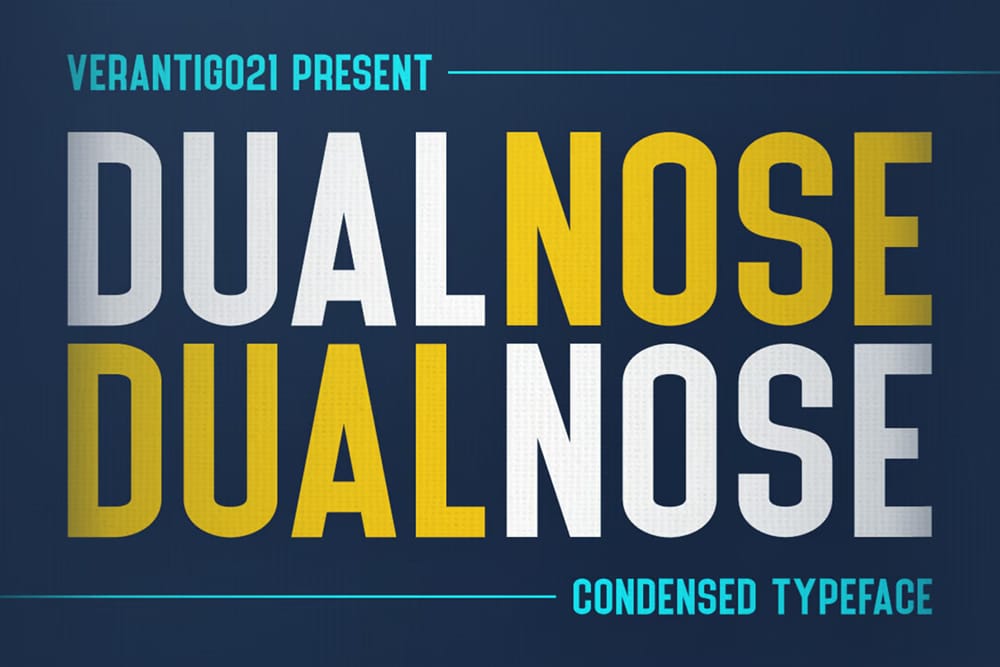
Cast Iron Font
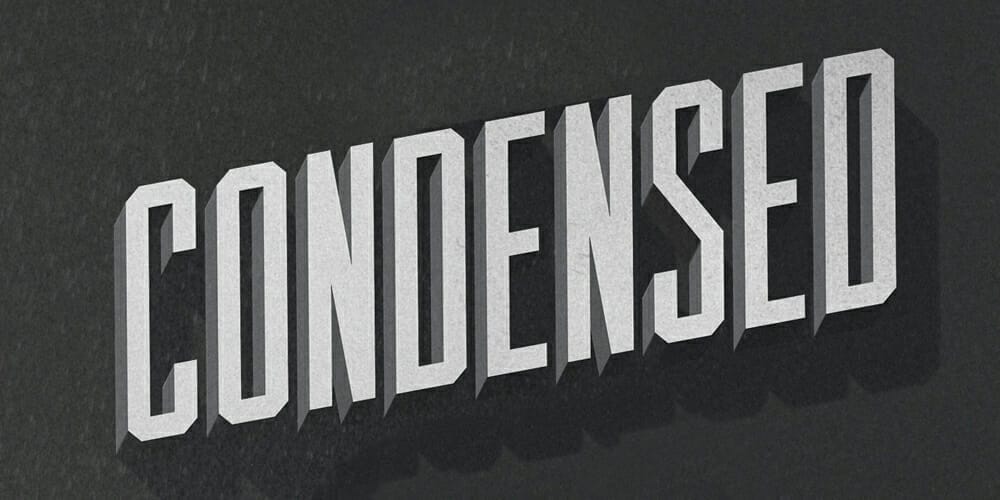
Bigwhale Condensed
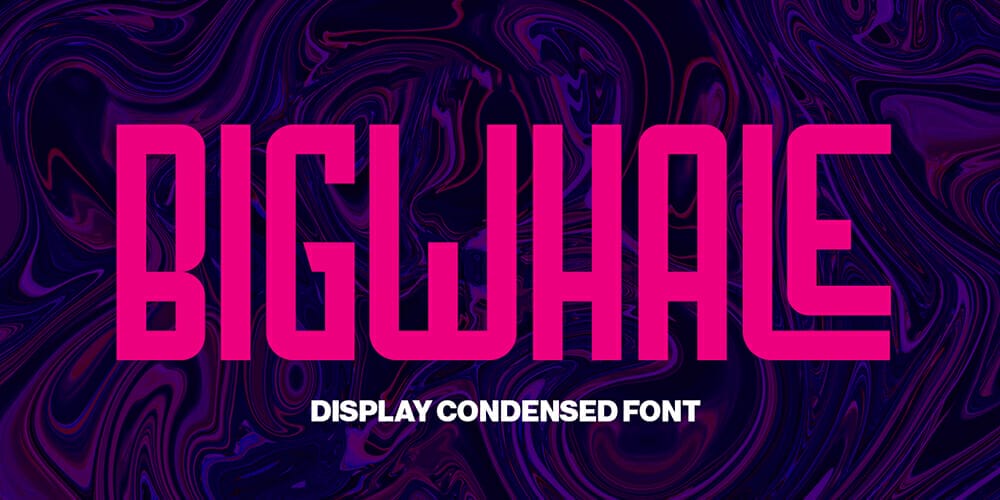
Valinguan Condensed – Modern Condensed Sans Serif
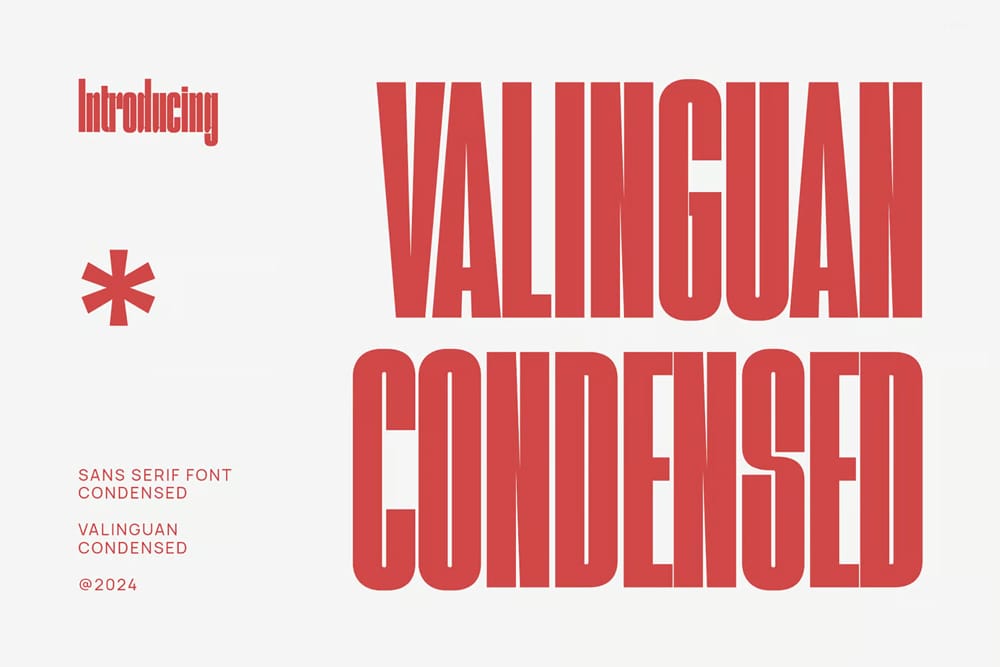
Ducados
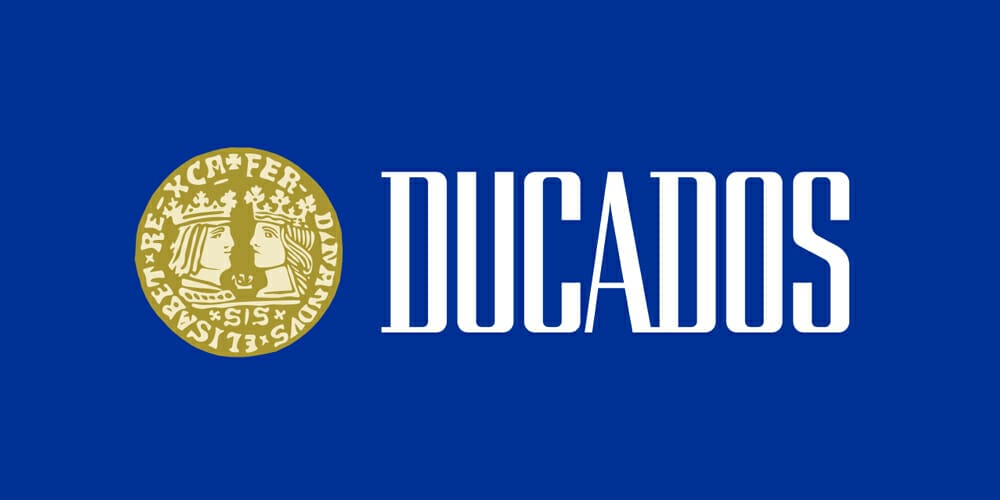
Ascend Font
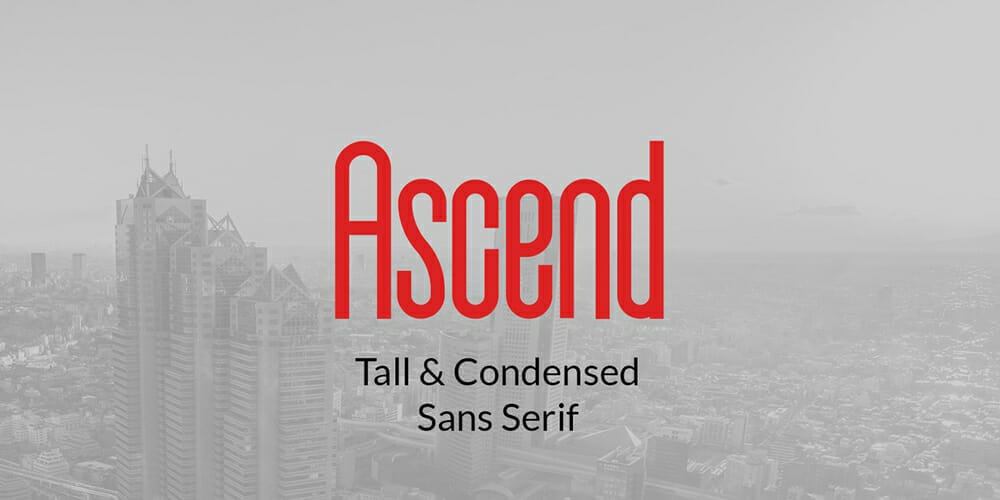
Uniser – Condensed Sans
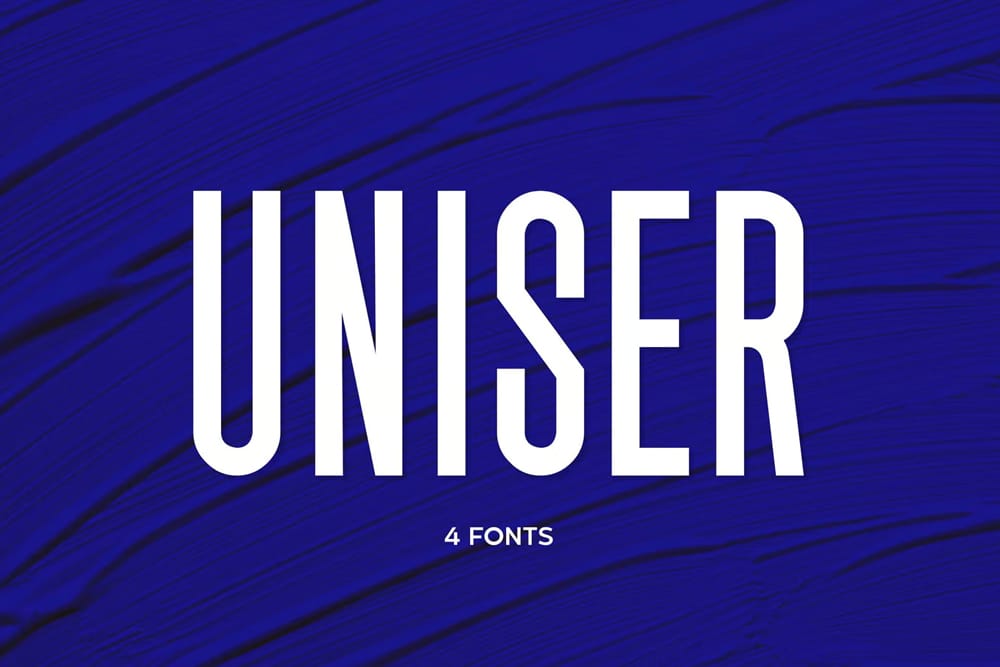
Intro Condensed
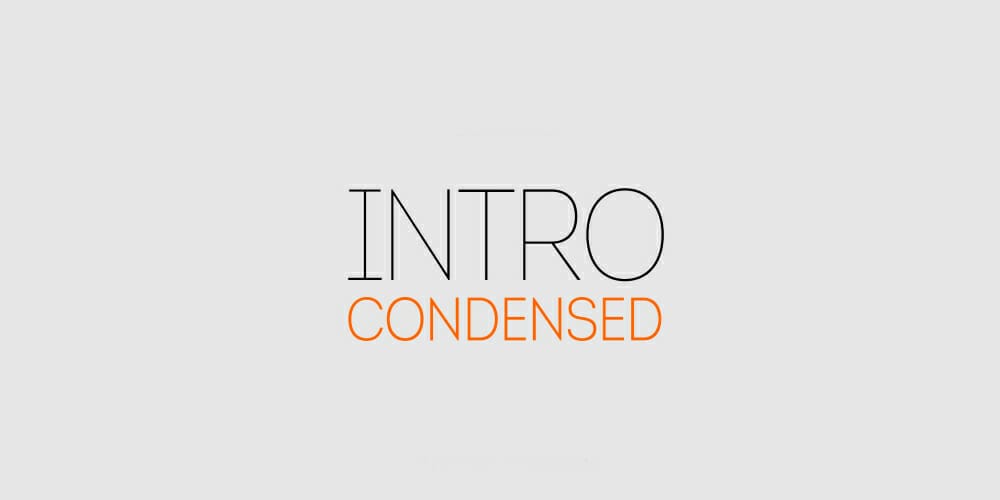
Junicode
Rondal
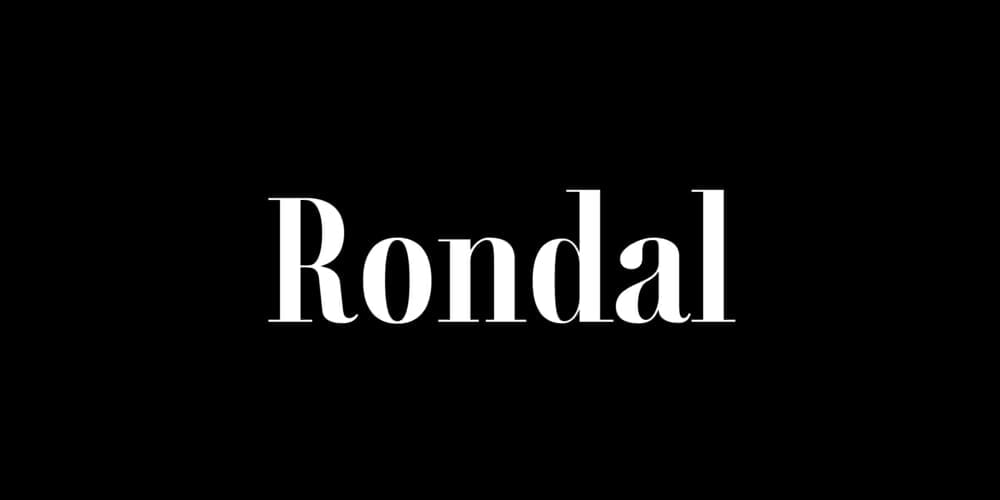
Ostrich Sans
Daydream
Thunder Typeface
Zaio Font
Claron Condensed Font
Marisole Condensed Sans Serif Font
Akrobat
Calibre
Aldo Sans
Morganite Typeface
Playen Sans
Myste Sans Serif Font
Hanca Font
Kamino Font
Libre Caslon Condensed
Gravtrac
Gaia Condensed Font
Union Condensed Font
Colonna Condensed Display Font
Fokus
Martian Mono
Fortzilla
Void Font
Cyrillic Style Display Font
Toolie Font
Calama Font
Theater Font
Silver Crown Font
HC Gleam Font
Galgo Condensed
Alodiya
Disclaimer Font
Mathison
MD Tall
Highliner Font
Canvas Font
Cramaten Font
RBNo2
Reckoner Typeface
Komoda Font
Sacco Font
Searocks
Futures
Obrazec 2.0
Schabo Condensed
Pasti Font
Manila Typeface
Apollo
Drumnik
Yulong Font
Bluenesia Font
Qikober Condensed Font
Black Charms Condensed Font
Leentank Condensed Display Typeface
Zephyrus Font
Erhard
Lorida Condensed Display Font
Bueno Typeface